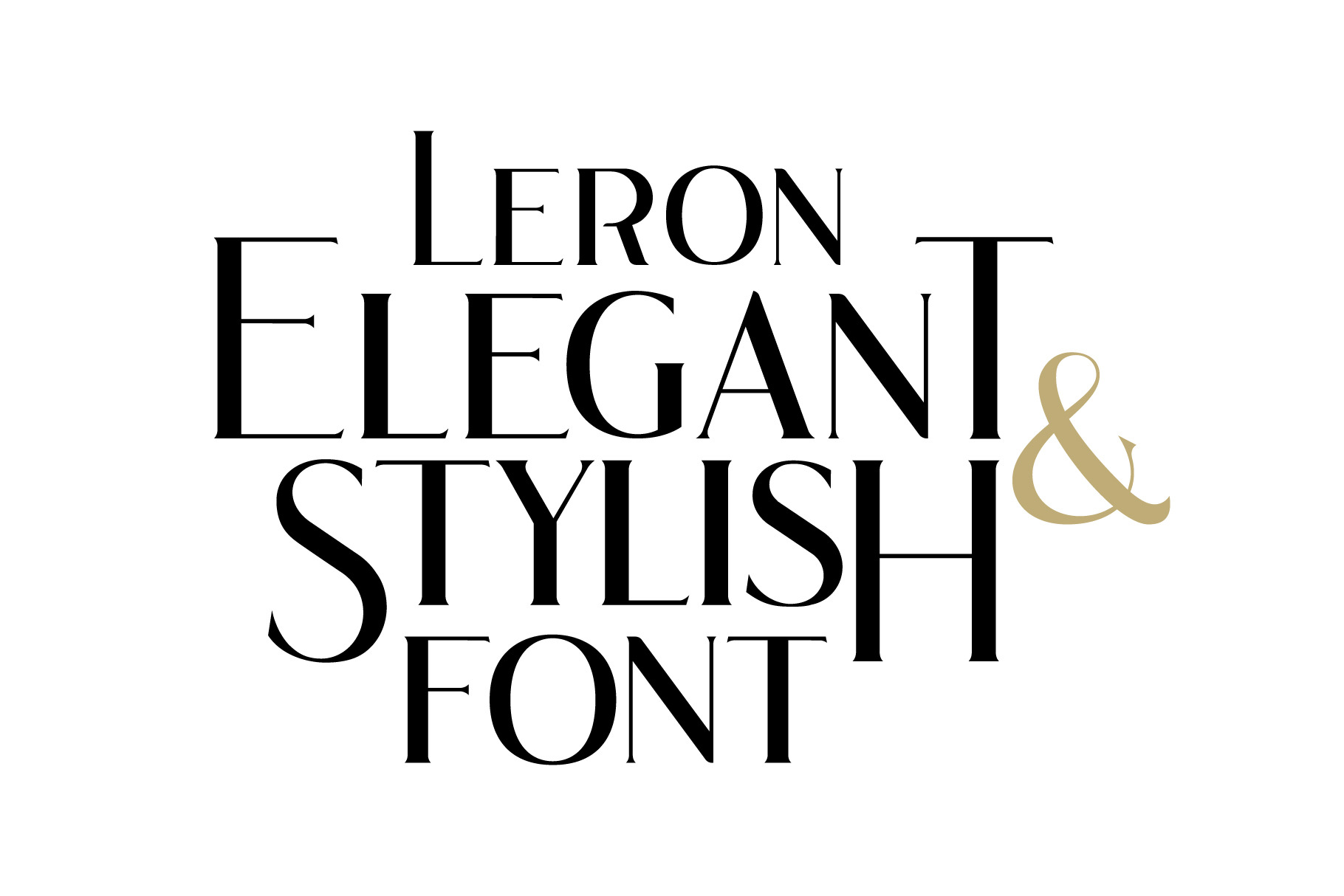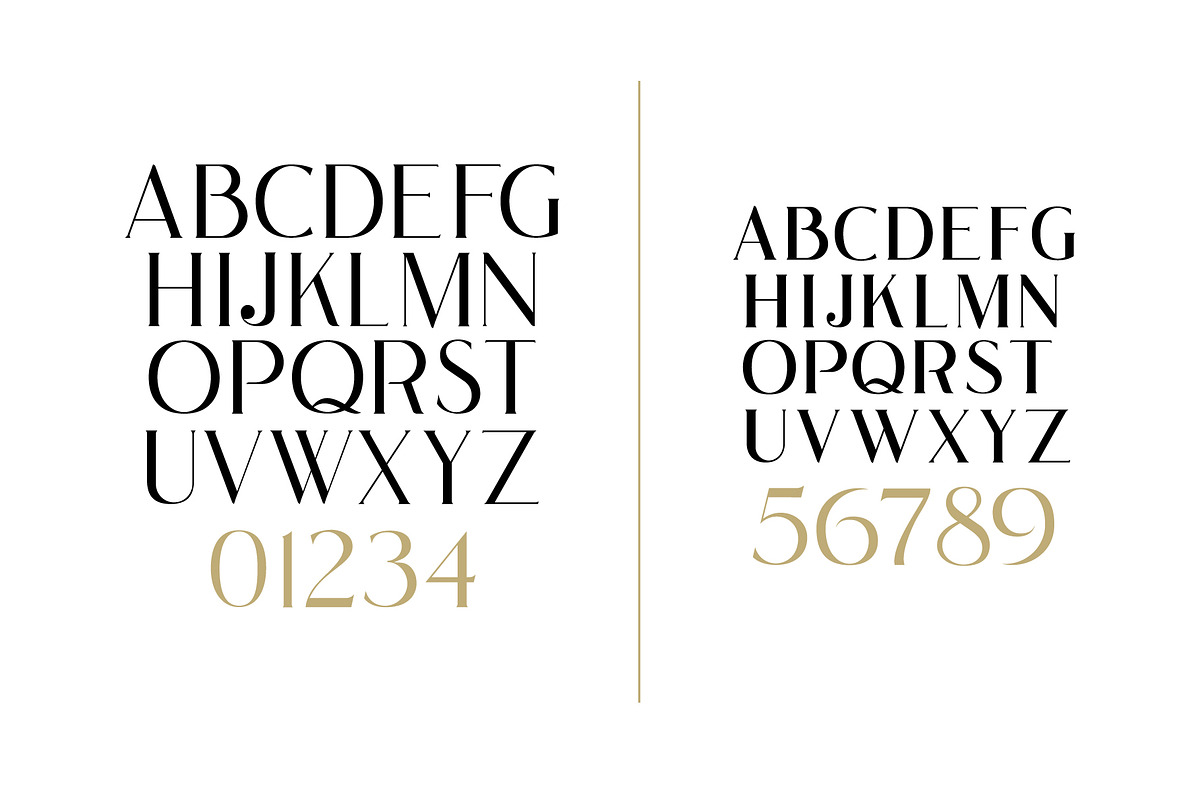
Leron font
New elegant font typeface - Leron. Stylish serif font ideally suited for the design of wedding invitations, design of posters and flyers as well as magazine titles.
- Сapital letters A-Z
- Lowercase letters a-z
- Numbers 0-9